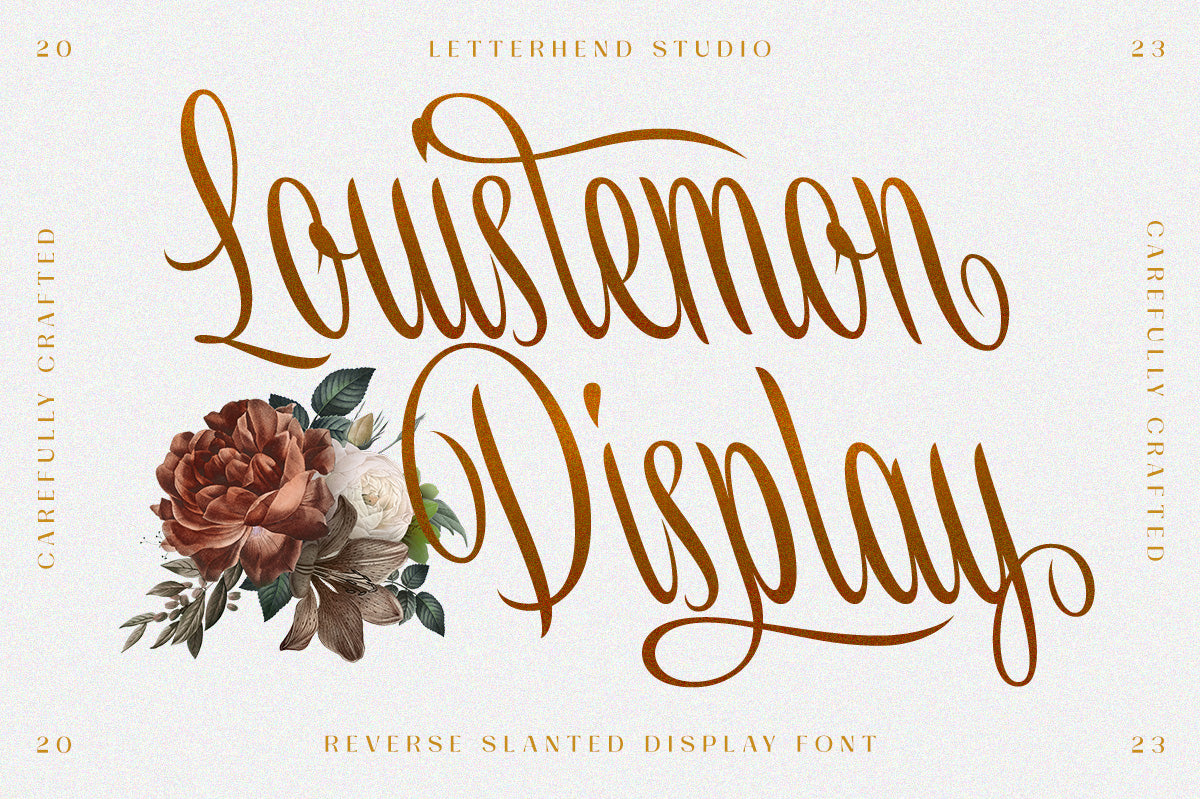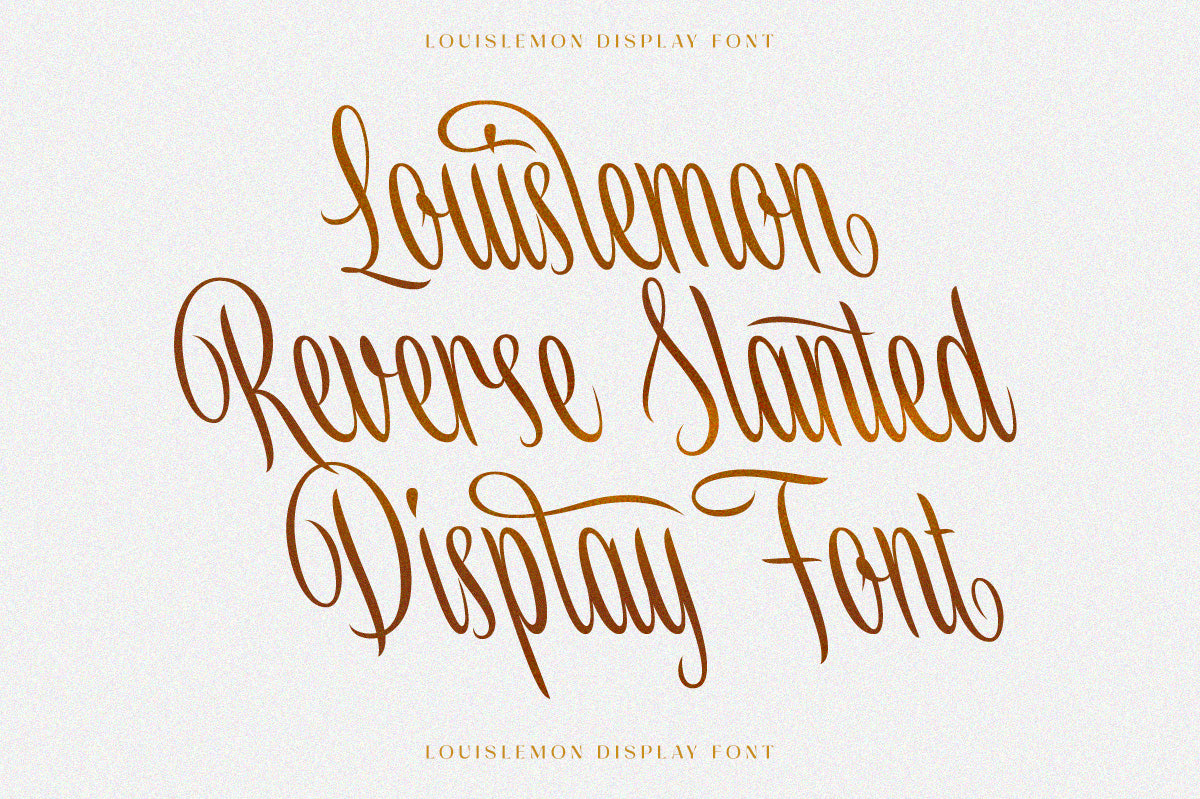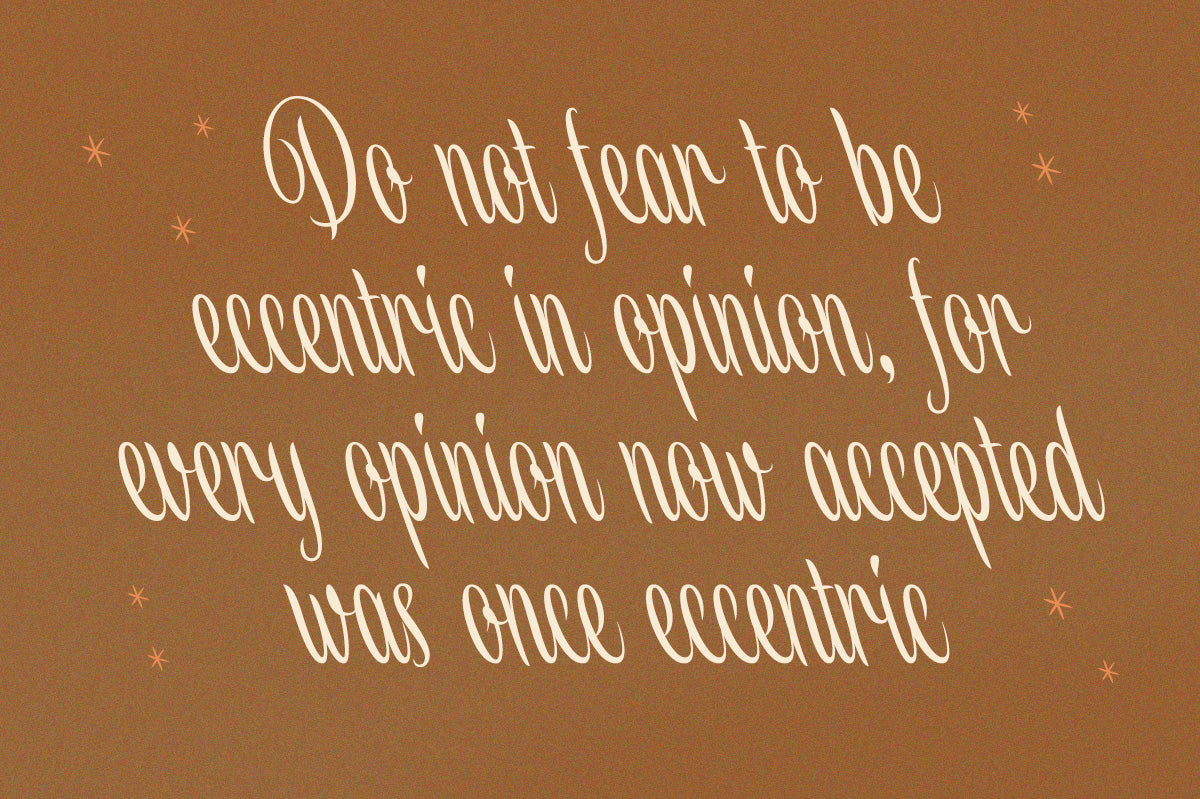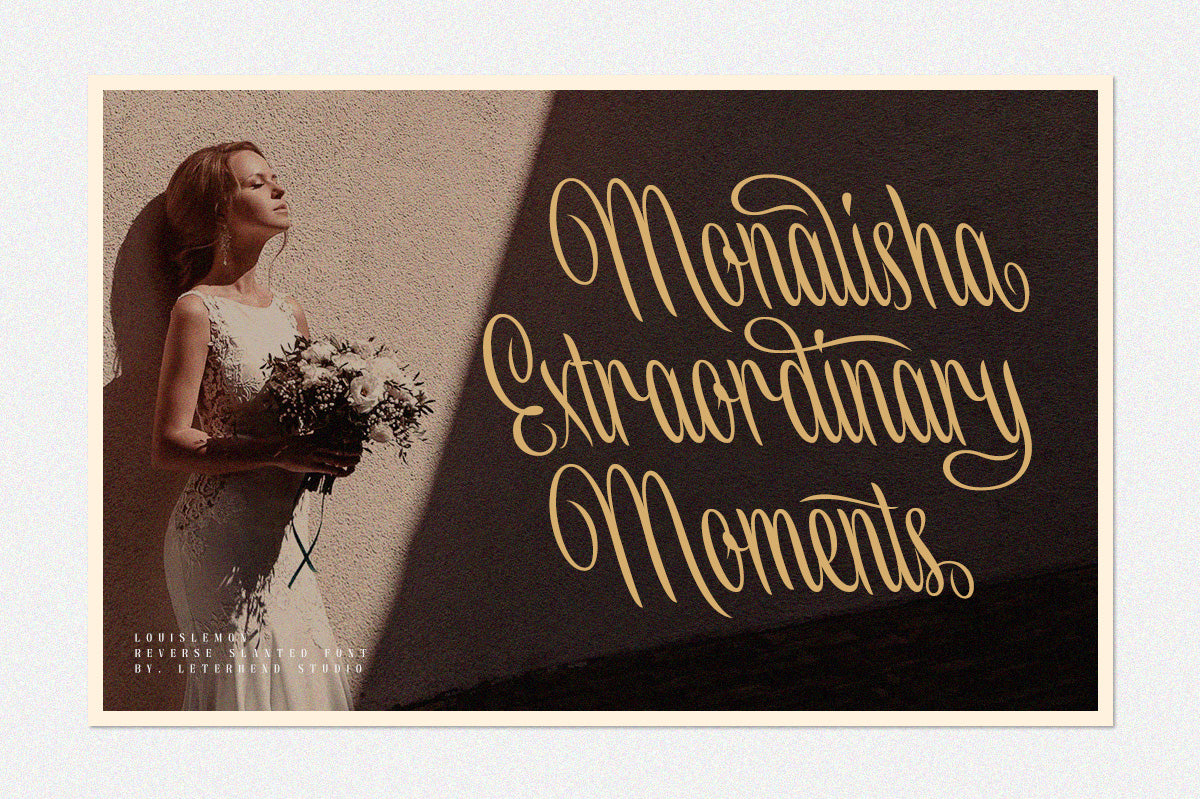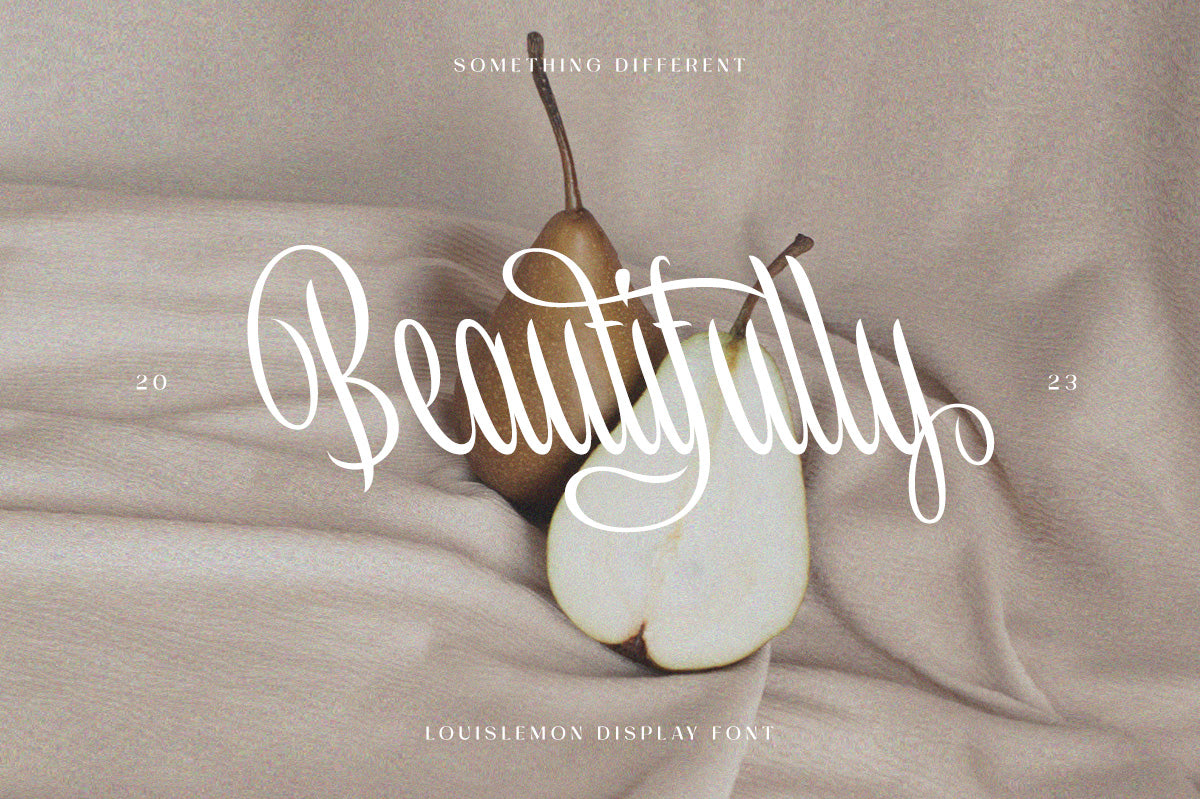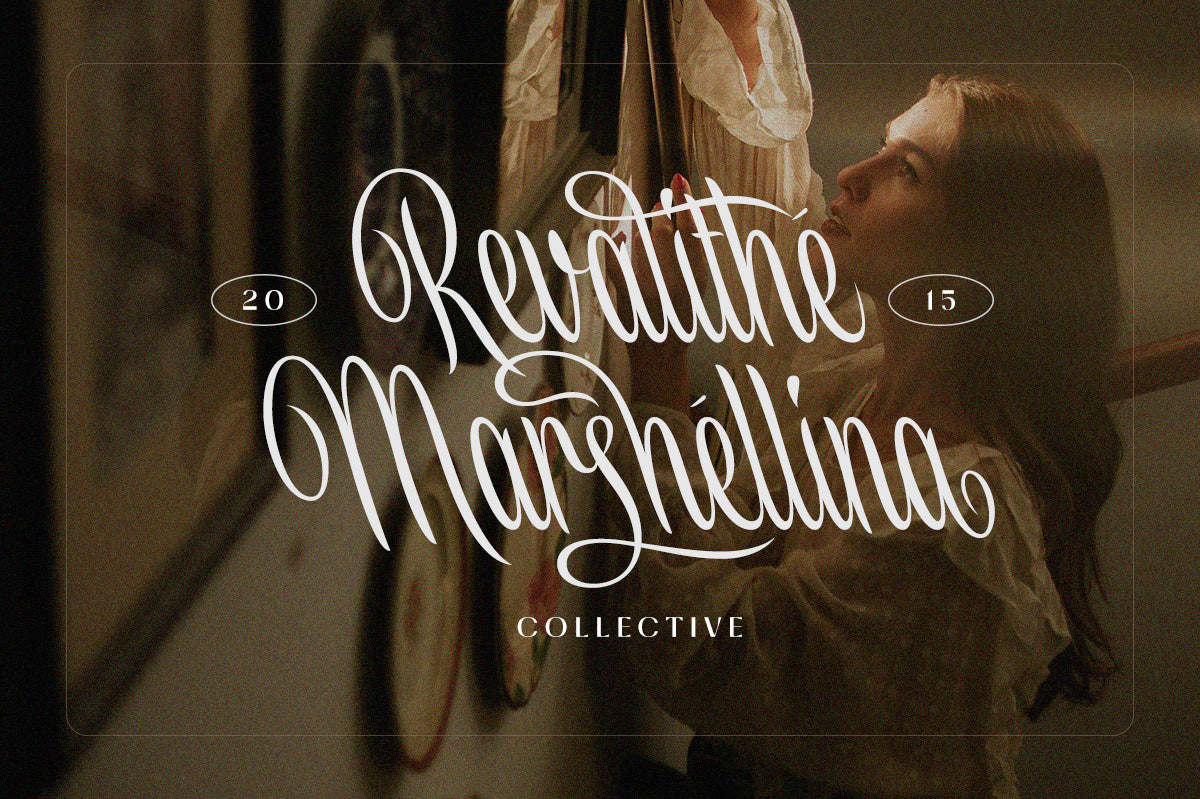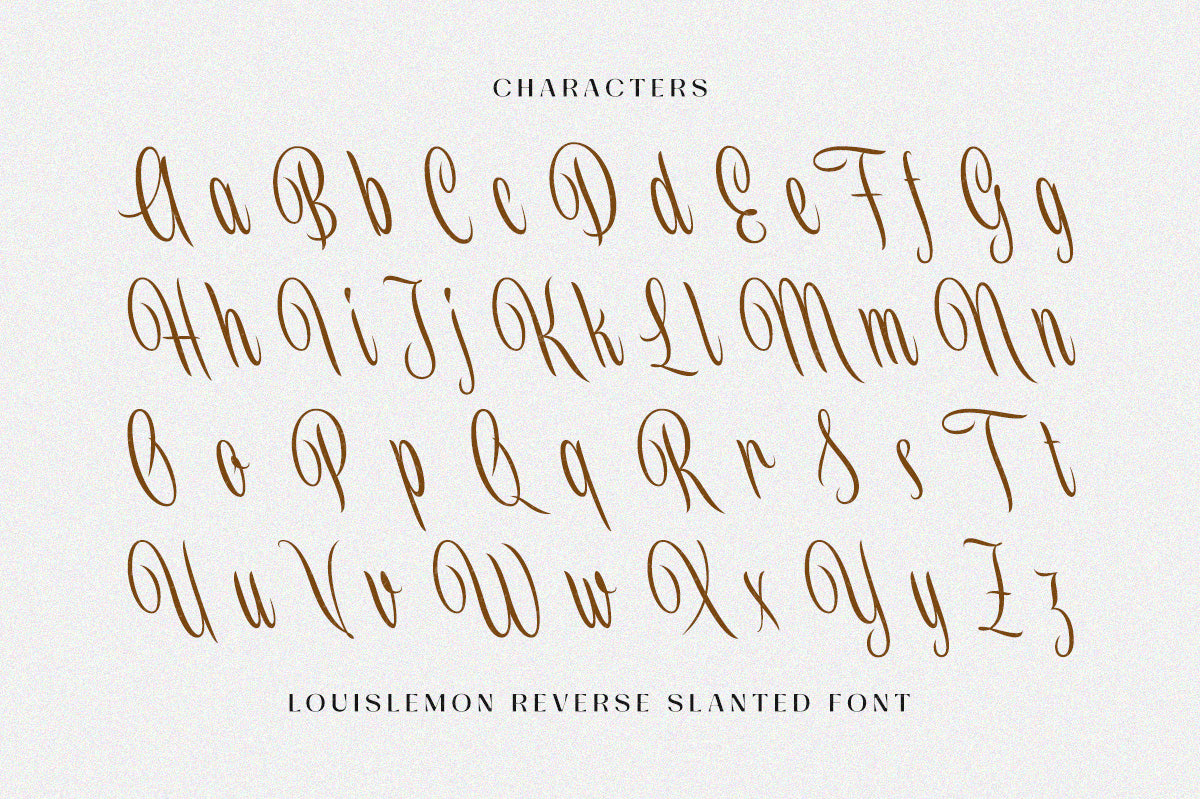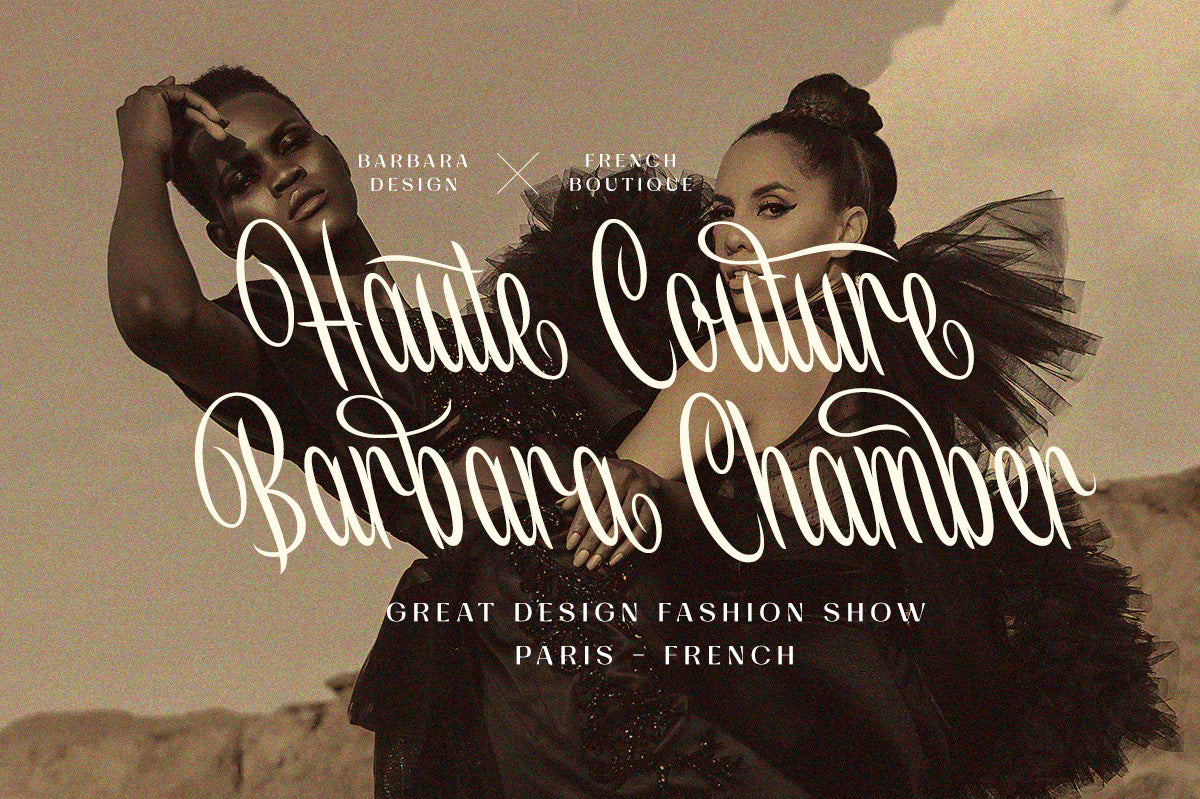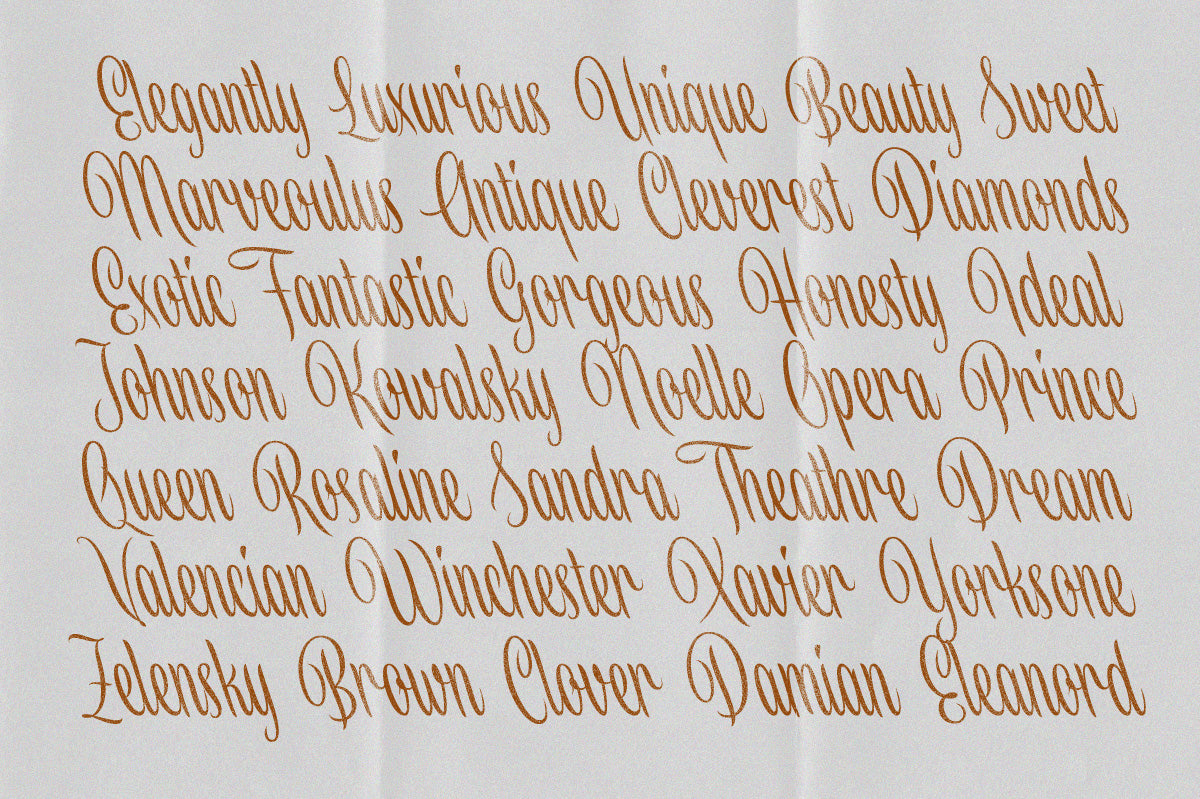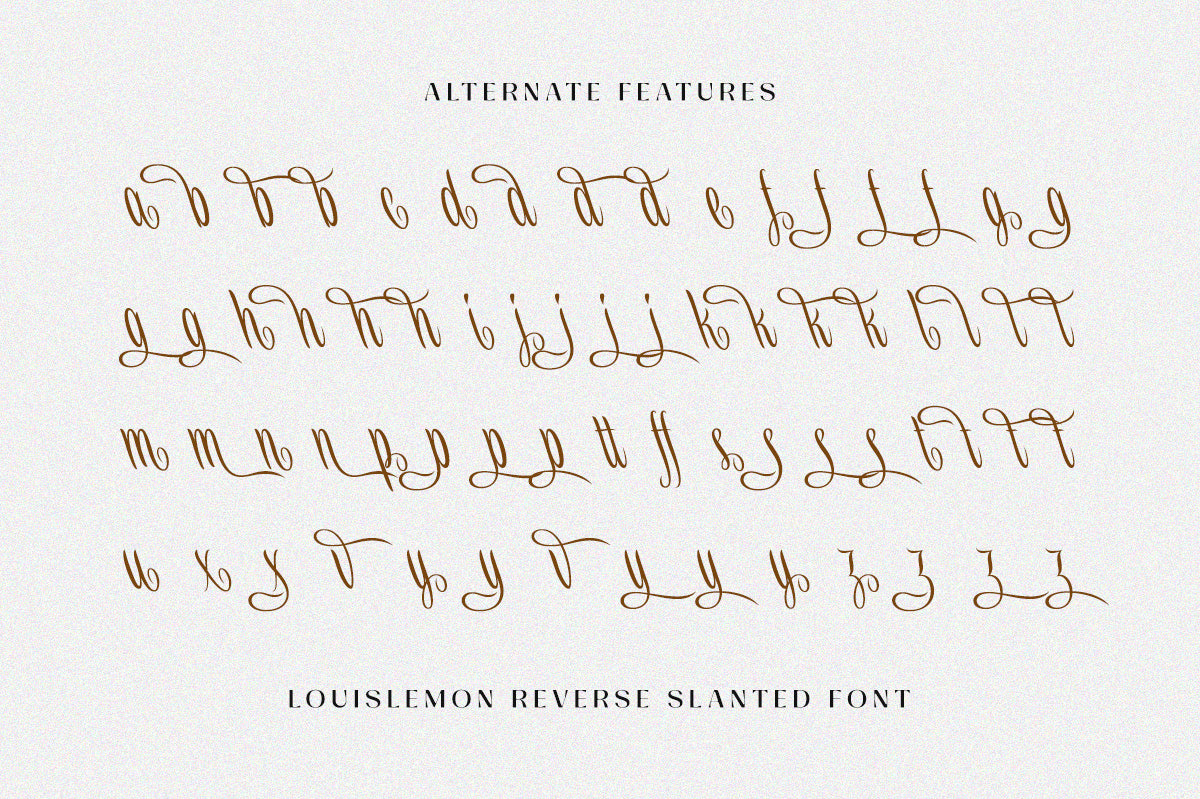
Introducing Louislemon, a unique display script featuring a distinctive reverse slant style. Its unusual design makes this typeface truly one of a kind. This font is perfectly suited for use in logos and various formal applications such as invitations, labels, magazines, books, greeting or wedding cards, packaging, fashion, makeup, stationery, novels, and any type of advertising purpose.
Features:
uppercase & lowercase
numbers and punctuation
multilingual
alternates and ligatures